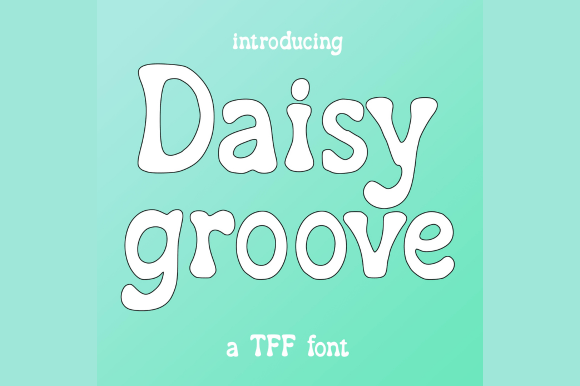
Daisy Groove Font: The Ultimate Choice for Friendly and Playful Designs
Are you tired of using the same old fonts for your designs? Look no further than the delightful Daisy Groove font! This childish, easy-to-read display font is perfect for conveying impeccable friendliness in all your design projects. Whether you’re a designer, crafter, or simply someone who loves to create, Daisy Groove is sure to become your new favorite go-to font.
What Makes Daisy Groove So Special?
Daisy Groove is more than just a font – it’s a design statement. Its playful and whimsical style is sure to capture the attention of your audience and leave a lasting impression. The font’s childish charm makes it perfect for designs that require a friendly and approachable tone, such as:
- Crafts: Use Daisy Groove to add a personal touch to your handmade crafts, such as greeting cards, scrapbook pages, and DIY projects.
- Digital Design: Add a playful twist to your digital designs, including social media graphics, blog posts, and website headers.
- Presentations: Make your presentations more engaging and fun with Daisy Groove’s friendly and approachable style.
- Greeting Cards: Create one-of-a-kind greeting cards that will make your loved ones smile with Daisy Groove’s cheerful and upbeat vibe.
Key Features of Daisy Groove Font
So, what makes Daisy Groove font so special? Here are some of its key features:
- Childish and playful style: Perfect for designs that require a friendly and approachable tone.
- Easy-to-read: Daisy Groove’s clear and simple design makes it easy to read, even at small sizes.
- Display font: Use Daisy Groove to add a pop of personality to your designs and make them stand out.
- Versatile: Suitable for a wide range of design projects, from crafts to digital design and presentations.
Why Designers and Crafters Love Daisy Groove
Daisy Groove font has quickly become a favorite among designers and crafters, and for good reason. Here are some reasons why:
- Unique style: Daisy Groove’s playful style sets it apart from more traditional fonts and adds a touch of personality to designs.
- Time-saving: With Daisy Groove, you can create professional-looking designs in no time, saving you time and effort.
- Fun to use: Let’s face it – designing with Daisy Groove is just plain fun! The font’s playful style is sure to put a smile on your face and inspire your creativity.
Tips for Using Daisy Groove Font
Here are some tips for getting the most out of Daisy Groove font:
- Pair it with other fonts: Combine Daisy Groove with other fonts to create interesting and dynamic designs.
- Experiment with colors: Try out different colors and color combinations to add an extra pop of personality to your designs.
- Use it for headings: Daisy Groove is perfect for headings and titles, where its playful style can really shine.
- Don’t be afraid to get creative: With Daisy Groove, the possibilities are endless! Don’t be afraid to try out new and unusual design ideas.
In conclusion, Daisy Groove font is a versatile and fun font that’s perfect for designers and crafters who want to add a touch of friendliness and playfulness to their designs. With its childish charm, easy-to-read design, and versatile style, Daisy Groove is sure to become your new go-to font for all your design projects. So why wait? Give Daisy Groove a try today and see the difference it can make in your designs!